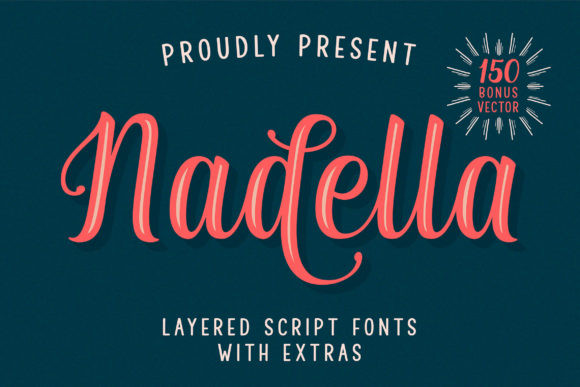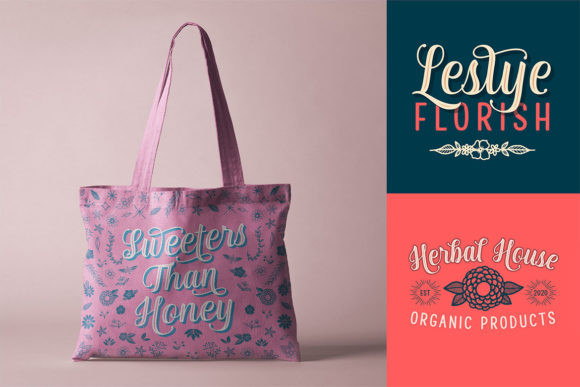
Nadella Font
Nadella is a great layered script font. It features 8 different styles that you can combine to make an even more versatile design. Take your designs to the next level with this amazing font!